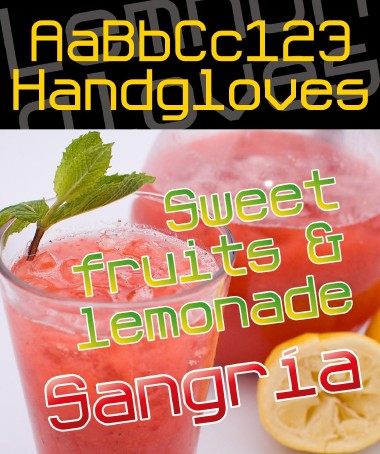
My second font in a 2:2 grid. It was primarily a study by the use of the new FS arcs (aka "macaroni"). This seems me a very readable font with many possible uses. Your help to fix my mistakes in it will always be very well received, thanks in advance.
this is good looking. I like the k,x here
The font working near the pixel zone looks well.
Looks awesome in pixel size!